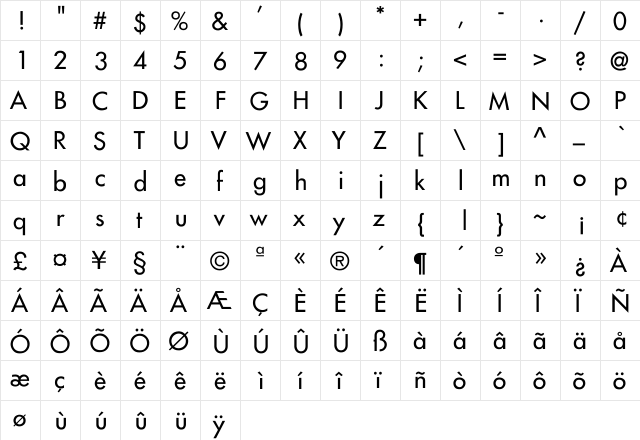
Fairmont-Normal Regular
Design Context for Fairmont-Normal Typeface
Fairmont-Normal is a composed and adaptable typeface that performs quietly and consistently across a wide range of design contexts.